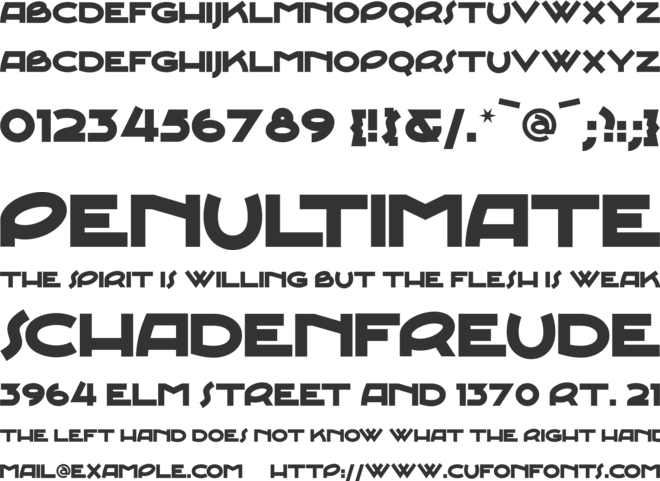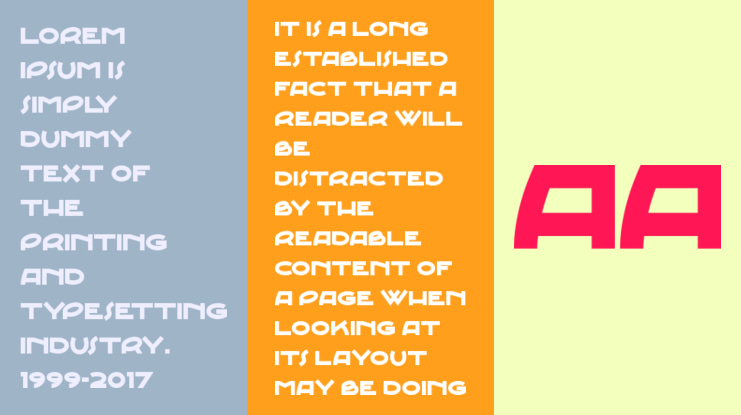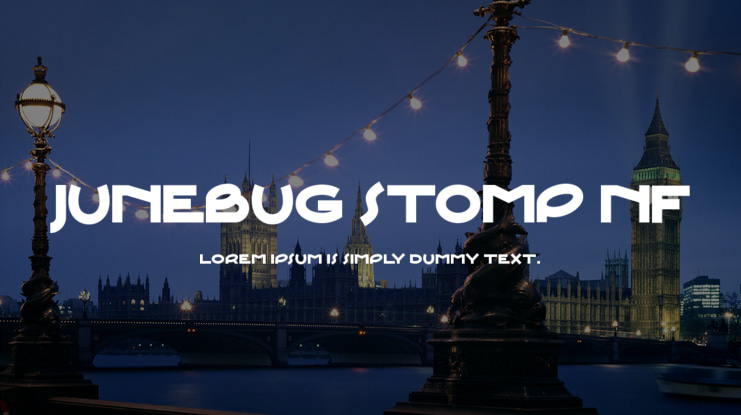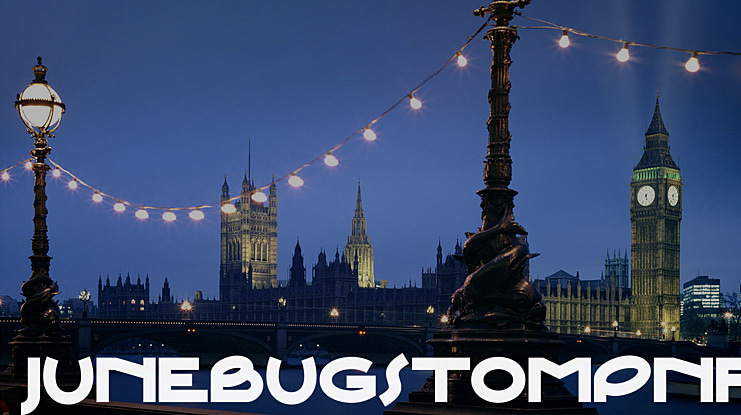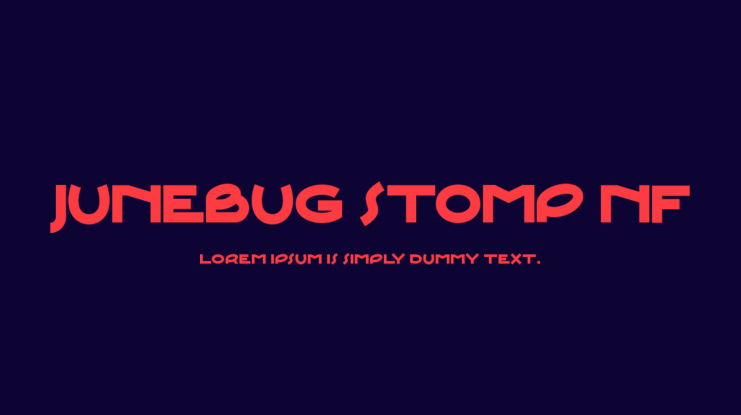
Junebug Stomp NF Font
Nick Curtis
A French poster from 1925 for dancer Arlette Montal, designed by an evidently carefree fellow named Bouchard, provided the clues that led to this typeface. Named after a popular East Texas porch dance.